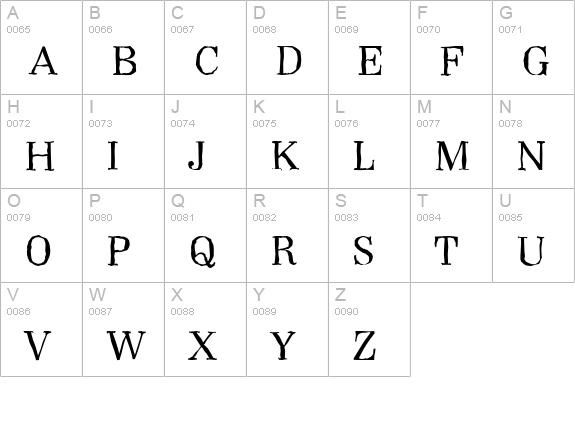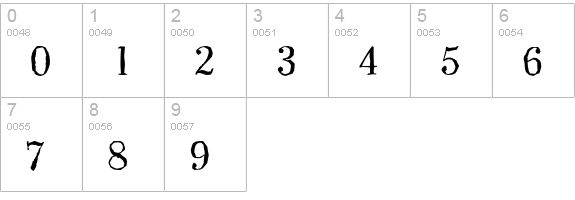
WichitaAntique-Regular Font Details
WichitaAntique-Regular is the standard, neutral variant in the WichitaAntique typeface family \xE2\x80\x94 well suited to general body text, paragraphs, and standard typographic work.
WichitaAntique-Regular font is a vintage-inspired typeface that exudes elegance and charm. Its timeless design captures the essence of the past while maintaining a modern appeal. With its classic serifs and intricate details, this font is perfect for adding a touch of nostalgia to any project. Available for free download at FontsMarket.com, WichitaAntique-Regular offers a wide range of possibilities for designers and creatives looking to infuse their work with a sense of history and sophistication. Whether you're working on a branding project, invitation design, or any other creative endeavor, this font is sure to make a lasting impression. Embrace the beauty of the past with WichitaAntique-Regular font and elevate your designs with its distinctive style and character. Download it for free today and add a touch of vintage flair to your next project.